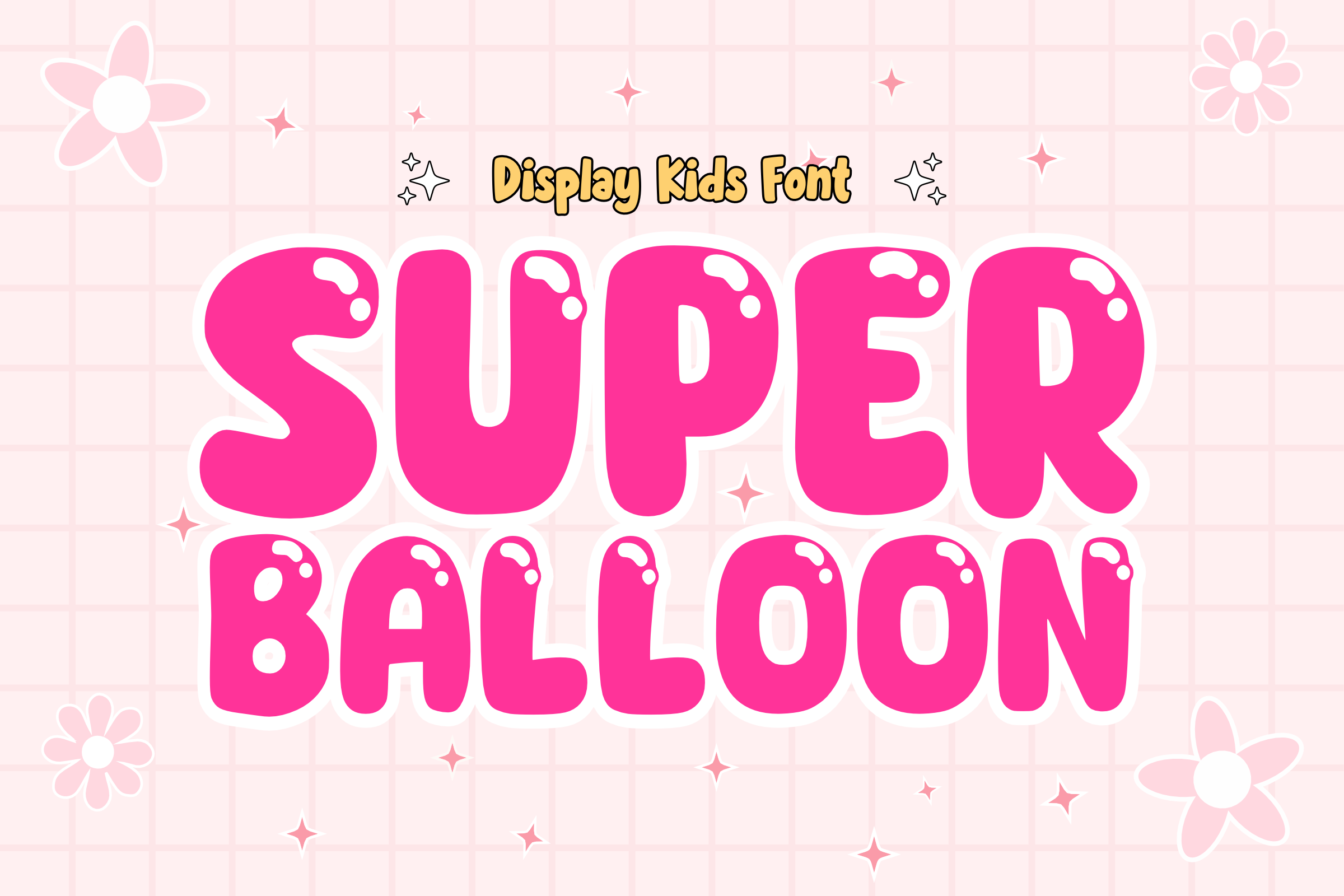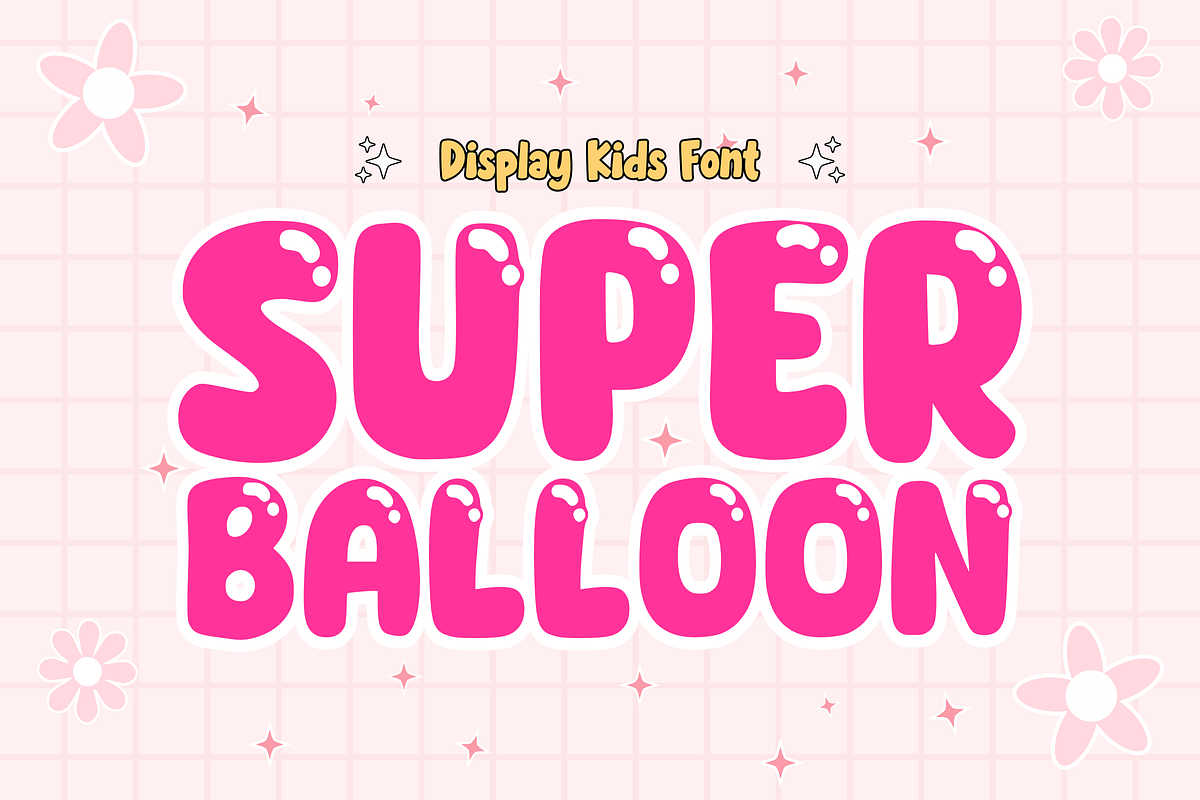
Super Balloon - Bubble Font Types
Meet “Super Balloon”, a delightfully joyous decorative font, built with a bouncing bubble theme in mind, and specifically crafted for children. The faces of each character are playfully adorned with polka dots, enhancing recognizability. This font shines when utilized in sublimation designs for merchandise, such as t-shirts, mugs, tote bags, and animations, complementing their playful and vibrant themes. But, the “Super Balloon” font really giggles in comic titles with its bubbly demeanor. Allow your imagination to frolic in this font’s rich, playful attributes! Your support through likes and follows energizes us, pushing us to continue crafting new, unique, and exciting fonts. Thank you!